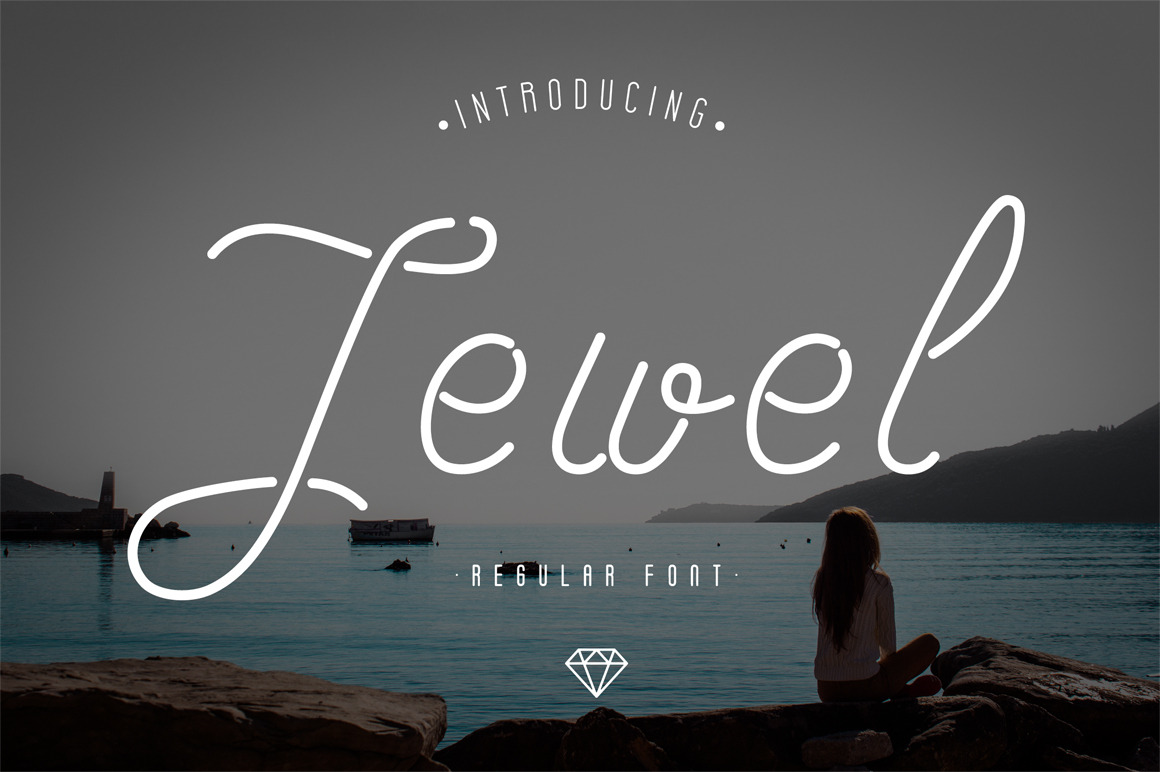
Jewel Font
Jewel is a unique typeface.
This is font would be perfect to combine in your design with vintage style. The font is great for product logo,wedding card, clothing brand, design greeting, prints, web design, invitation, business cards, caffee and much more. Jewel packs a set of uppercase and lowercase, numbers and punctuation.